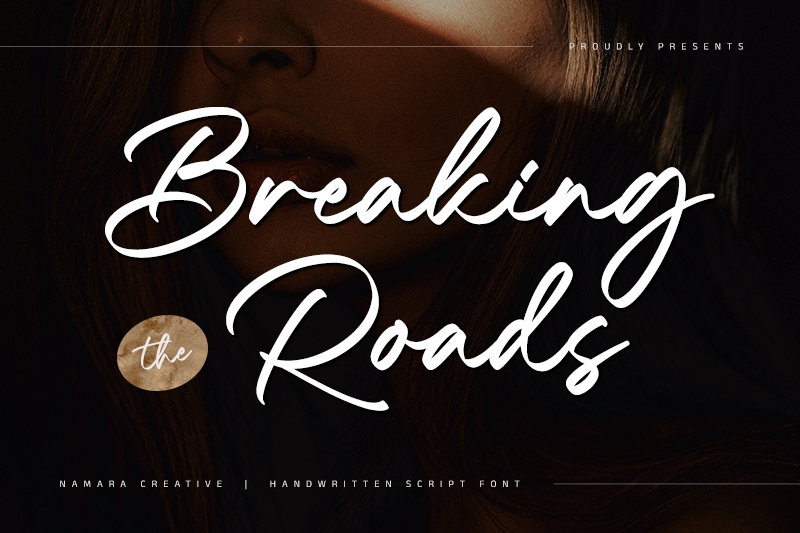
Preview and download Breaking Road Font. Created by Namara Creative in Script Handwritten styles with Free for personal use license.
Breaking Road is a Modern handwritten script font with casual and organic look, thick uneven strokes that vary in width. Perfect for wedding invitations, greeting cards, and posters to add a sense of informality and warmth. NOTE : - This font is PERSONAL USE ONLY, NO COMMERCIAL USED ALLOWED. - Link to purchase Full Version and Commercial license : https://onedsgn.com/product/breaking-road/ |